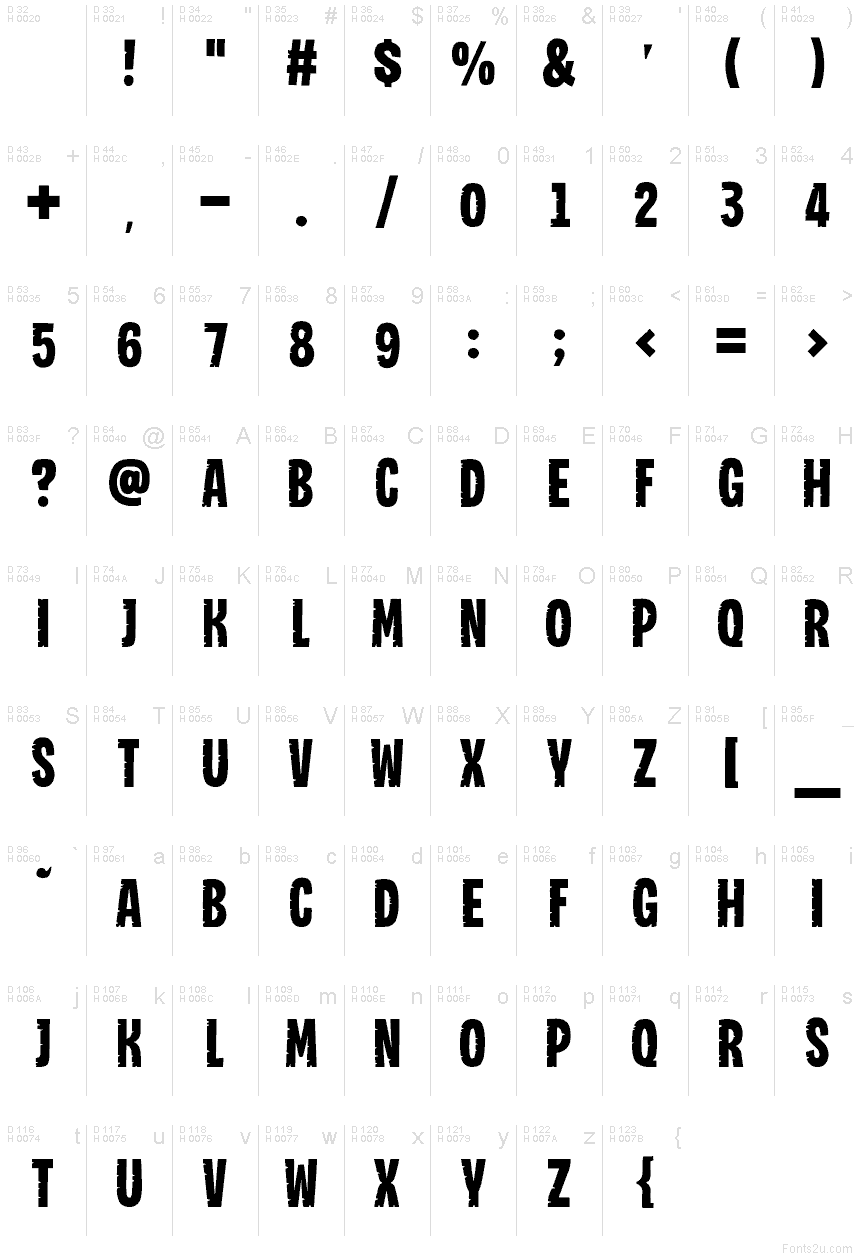
Industrial Voltage
Industrial Voltage font by BlackFridayFont FMF is a free eroded display font that solves a familiar headache: getting hard-edged grit without losing clarity. Its tall, condensed forms punch through space like stamped steel, while the scraped, uneven edges add a live-wire buzz instead of muddy noise. You get loud contrast and tight rhythm, so headlines hit hard and stay legible even at a glance.
Using Industrial Voltage, you can drive energy on gig posters, game titles, horror graphics, industrial packaging, festival banners, and bold YouTube thumbnails. The condensed build saves room on crowded layouts, and the erosion reads crisply at large sizes. Pair this free font with a clean geometric sans for body copy, or let it lead at 140% line spacing to amplify the voltage.